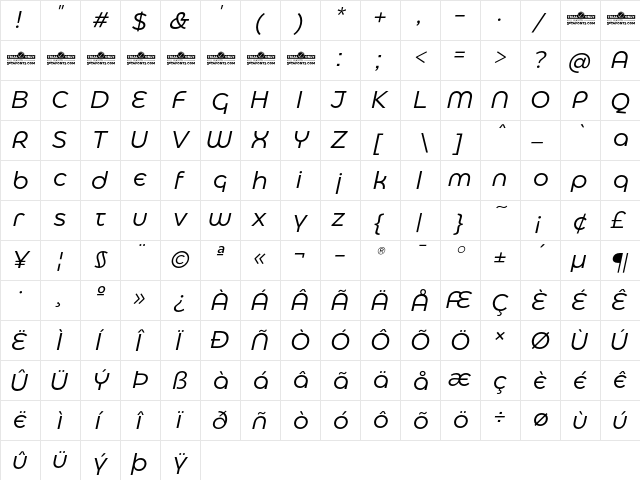
Eastman Alternate Trial Italic
| Foundry | Zetafonts |
| Designer | Francesco Canovaro |
Design Context for Eastman Alternate Trial Typeface
Eastman Alternate Trial offers clean, dependable letterforms without strong stylistic allegiance, making it a practical choice for designers who need flexibility. The slanted form adds forward momentum and visual energy.